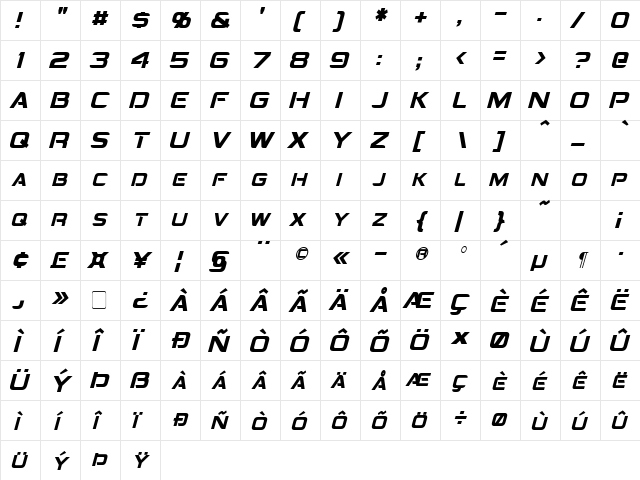
Montalban Condensed Italic
Foundry Neale Davidson
DesignerNeale Davidson
Design Context for Montalban Condensed Typeface
Montalban Condensed takes a measured approach to typography — its balanced proportions and neutral character make it a reliable workhorse for both digital and print work. Its italic angle brings a sense of urgency and motion to the letterforms. Its narrow stance lets it pack a punch even in space-constrained designs.
Pro Tip: Try Montalban Condensed for annotation and caption copy alongside an upright companion — the contrast in angle creates a dynamic but ordered typographic system.